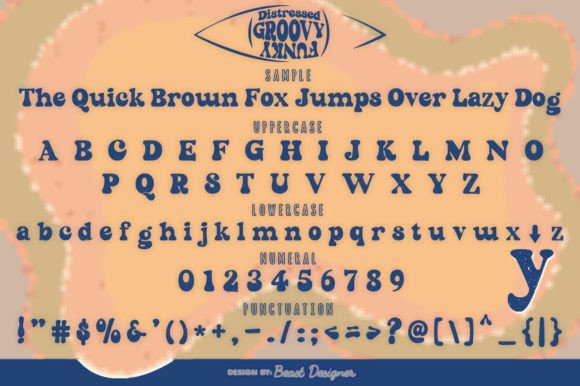
Unleash Your Creativity with Distressed Groovy Funky Font
Are you a designer or crafter looking for a font that can add a touch of retro charm to your projects? Look no further than the Distressed Groovy Funky Font! This cute classic display font is perfect for creating stunning designs that are sure to turn heads. In this article, we’ll dive into the world of Distressed Groovy Funky Font and explore its features, uses, and benefits.
What is Distressed Groovy Funky Font?
Distressed Groovy Funky Font is a unique and stylish font that is reminiscent of the classic fonts from the 60s and 70s. It’s a display font that is perfect for creating eye-catching designs that are full of personality. The font has a distressed look, which gives it a worn and vintage feel that’s perfect for retro-inspired designs.
Features of Distressed Groovy Funky Font
- Cute and Classic Design: Distressed Groovy Funky Font has a timeless design that is both cute and classic. It’s perfect for creating designs that are fun, playful, and full of personality.
- Retro-Inspired: The font has a retro vibe that’s perfect for creating designs that are inspired by the 60s and 70s.
- Distressed Look: The font has a distressed look that gives it a worn and vintage feel.
- Highly Versatile: Distressed Groovy Funky Font is highly versatile and can be used for a wide range of design projects, from t-shirts and tote bags to wedding designs and logos.
Uses of Distressed Groovy Funky Font
Distressed Groovy Funky Font is perfect for a wide range of design projects, including:
- T-Shirts and Apparel: Create stunning t-shirt designs that are sure to turn heads with Distressed Groovy Funky Font.
- Tote Bags and Accessories: Add a touch of retro charm to tote bags, hats, and stickers with this amazing font.
- Wedding Designs: Create beautiful wedding designs, including invitations, decorations, and more, with Distressed Groovy Funky Font.
- Logos and Branding: Use Distressed Groovy Funky Font to create unique and memorable logos and branding materials.
- Cards and Stationery: Add a touch of personality to cards, invitations, and stationery with this amazing font.
Benefits of Using Distressed Groovy Funky Font
- Unique and Timeless Design: Distressed Groovy Funky Font has a unique and timeless design that will make your designs stand out.
- High-Quality: Distressed Groovy Funky Font is a high-quality font that is perfect for professional designs.
- Incredibly Distinct: The font has an incredibly distinct style that will add a touch of personality to your designs.
Tips and Tricks for Using Distressed Groovy Funky Font
- Experiment with Different Colors: Distressed Groovy Funky Font looks great in a wide range of colors, so don’t be afraid to experiment and find the perfect color for your design.
- Use it with Other Fonts: Distressed Groovy Funky Font can be paired with other fonts to create stunning designs.
- Add Texture and Patterns: Add texture and patterns to your design to give it a more retro feel.
| Font Name | Distressed Groovy Funky Font |
| Author | Beast Designer |